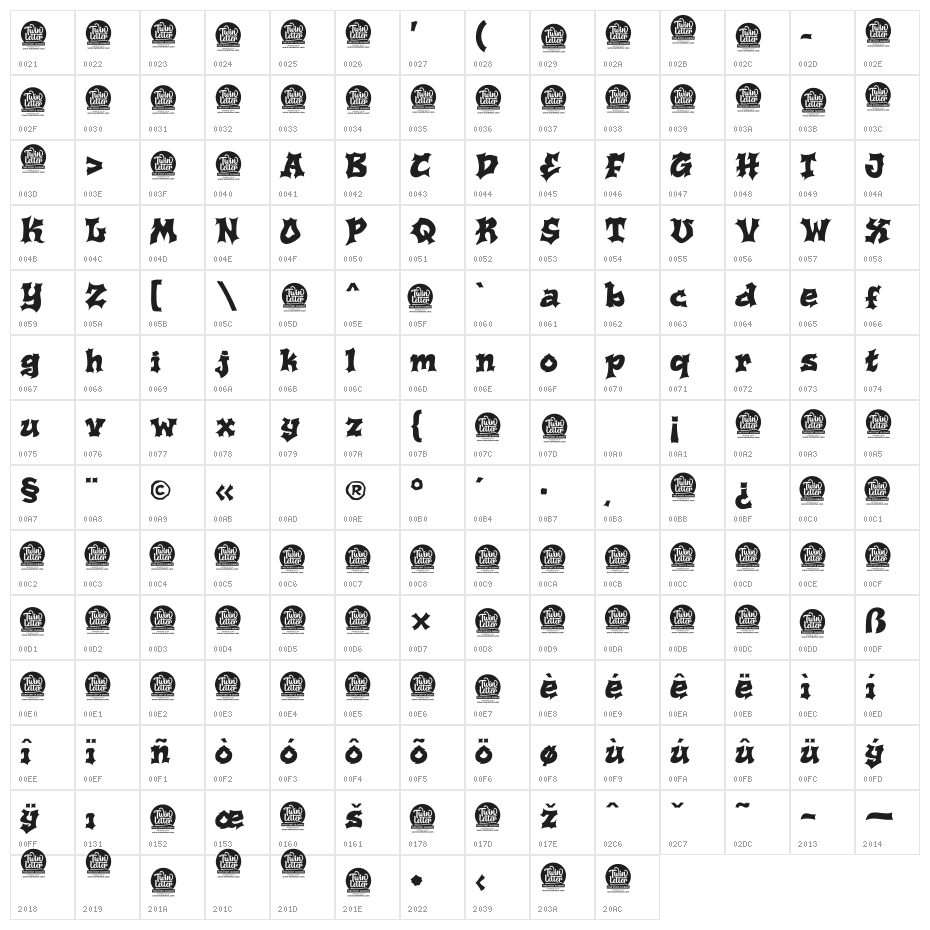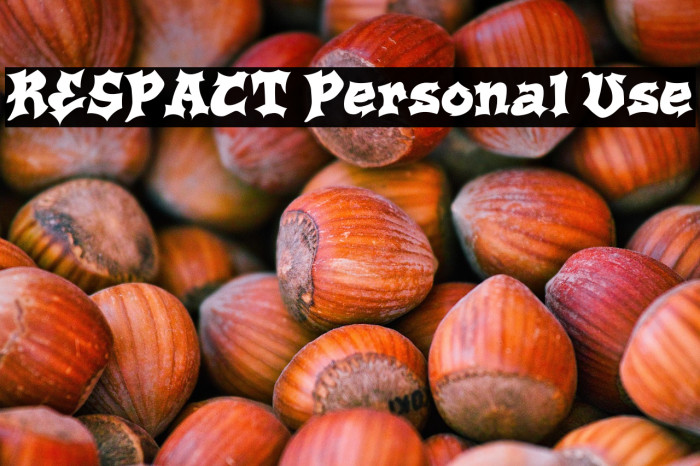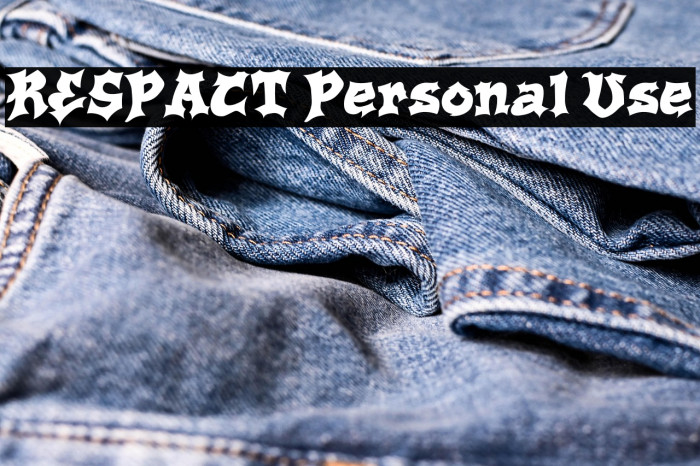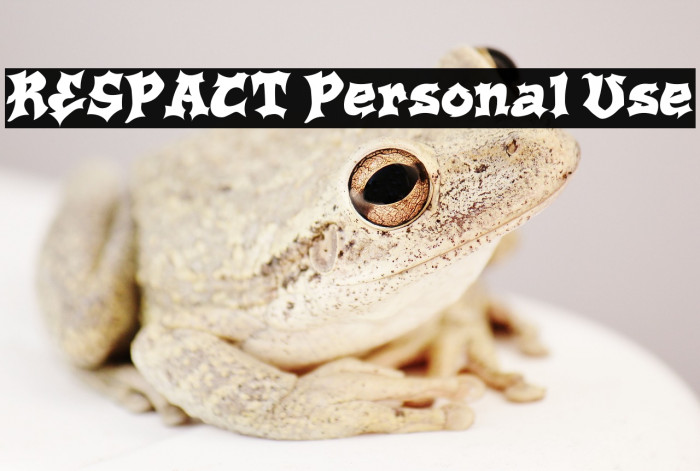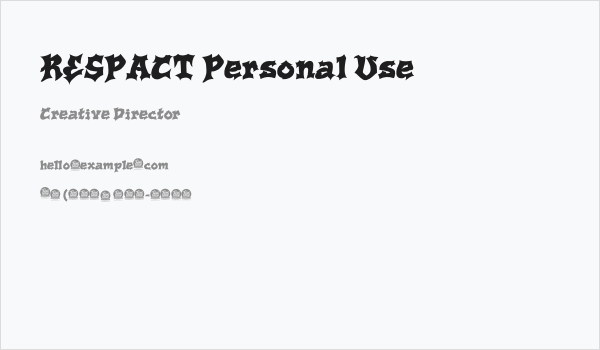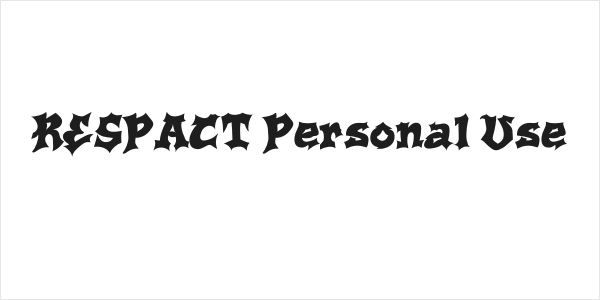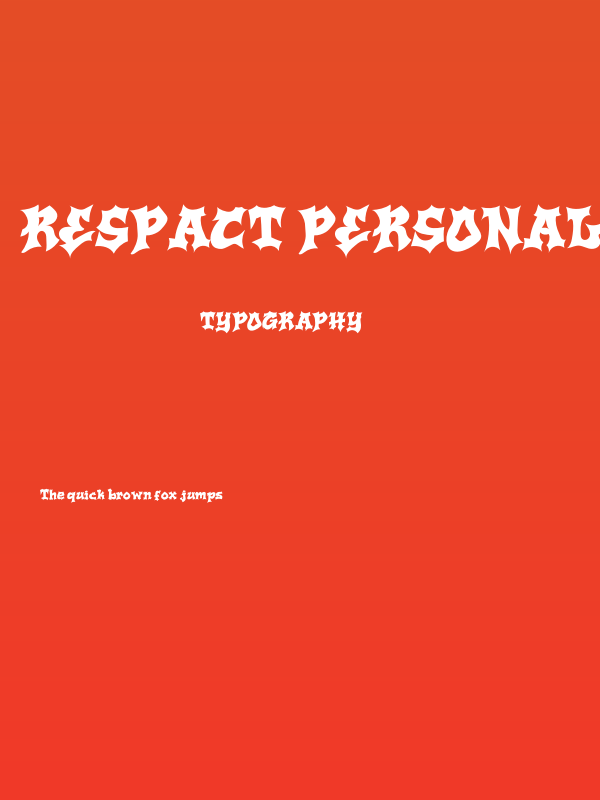
RESPACT Personal Use Font
RESPACT Personal Use Description
This font features a bold, dramatic style with sharp, angular edges and a distinct Gothic influence. The characters are heavily stylized, with exaggerated serifs and a strong presence that commands attention. The uppercase and lowercase letters maintain a consistent design, emphasizing a medieval aesthetic. The numerals and special characters follow the same ornate pattern, making the font suitable for thematic and decorative purposes.
| Use Case | Logos, Headlines, Posters |
| Proposed Projects | Ideal for projects requiring a medieval or fantasy theme, such as book covers, posters, or themed event invitations. |